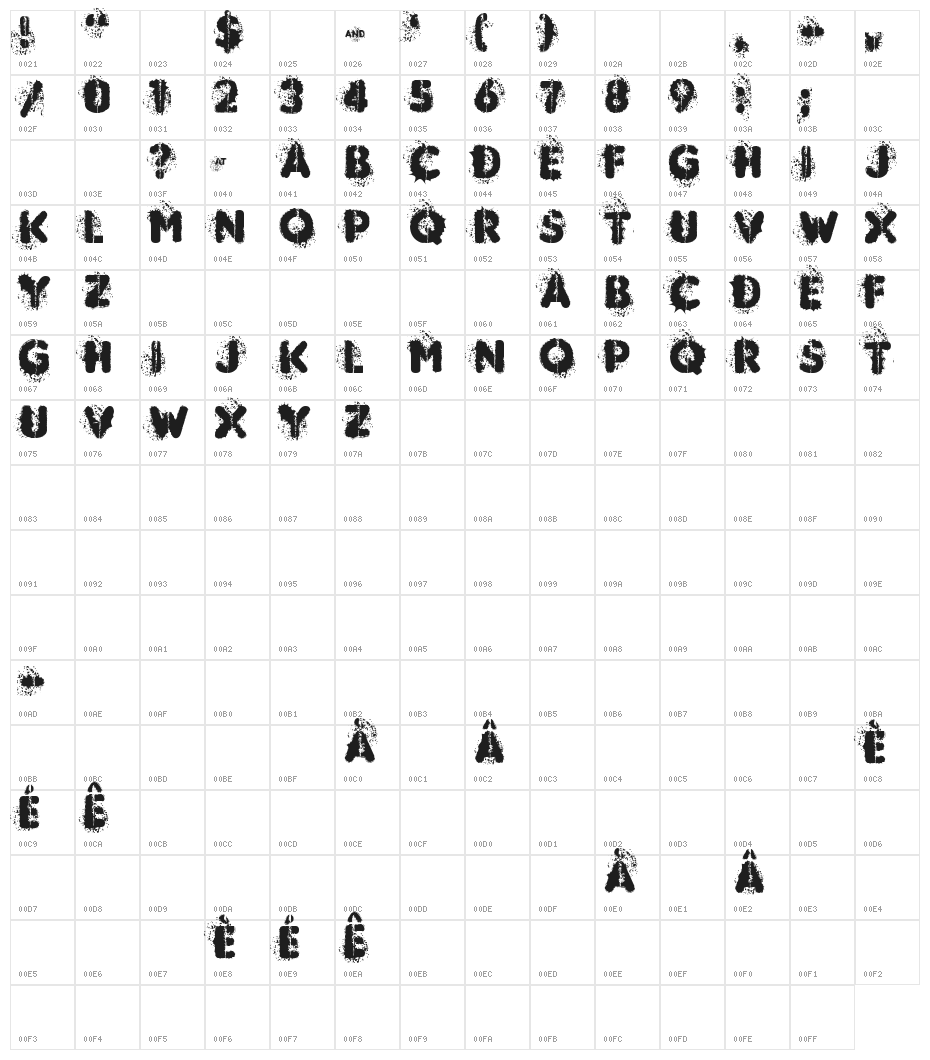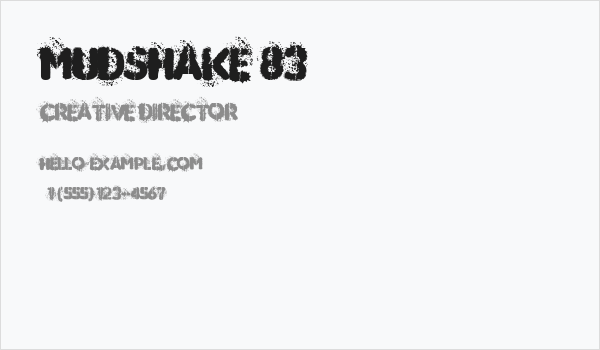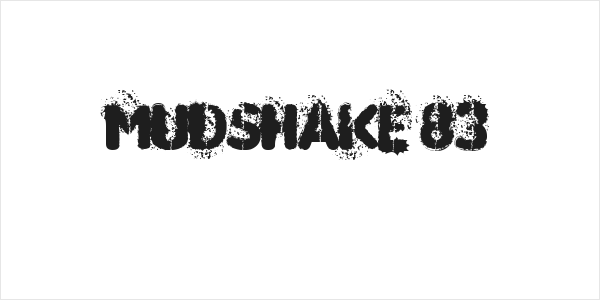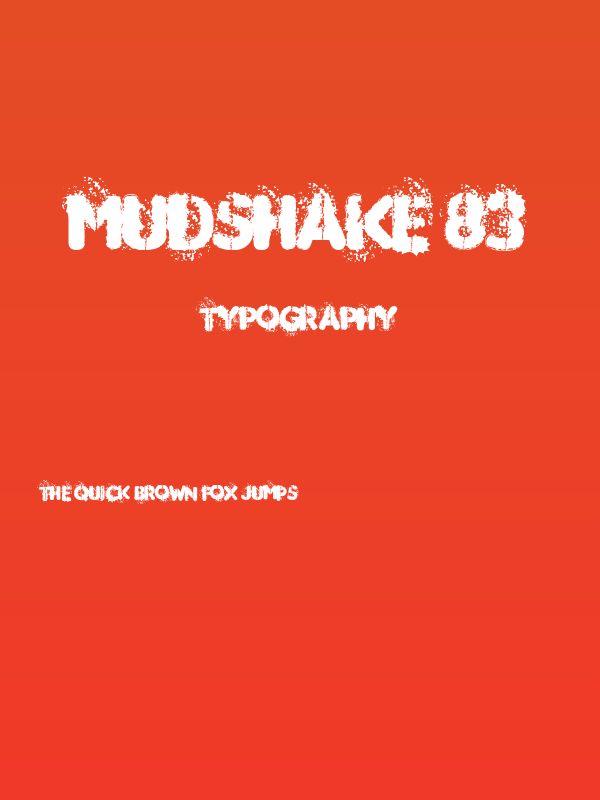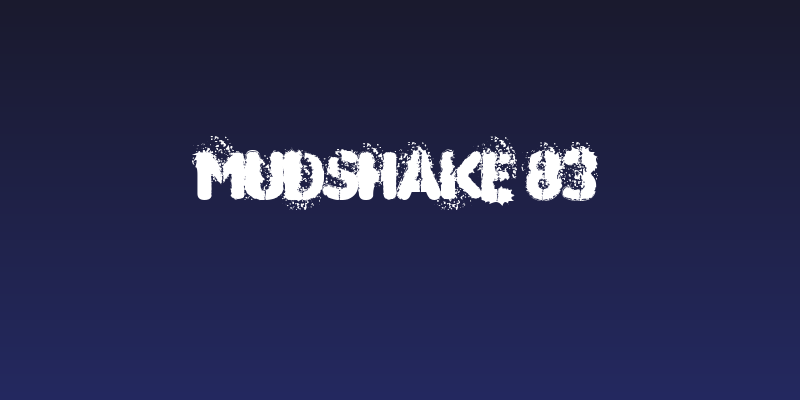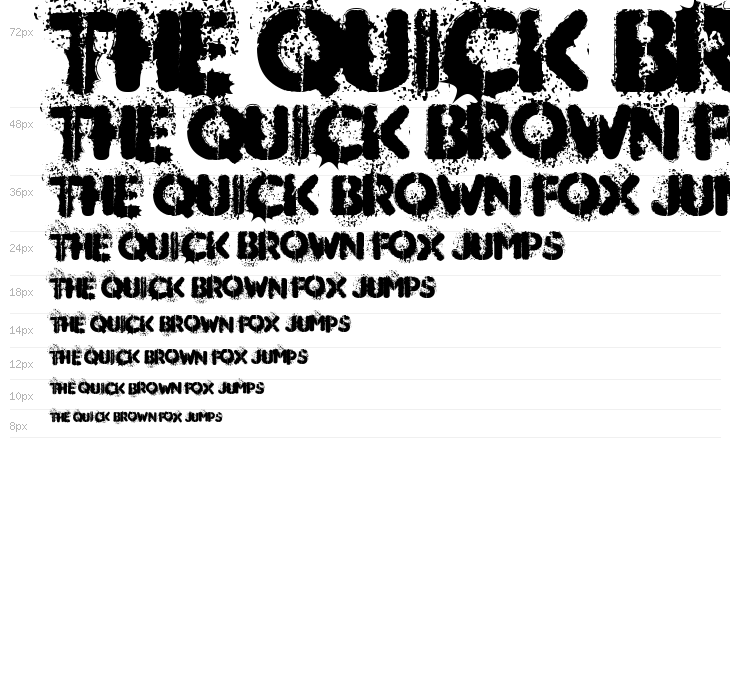
MUDSHAKE 83 Font
MUDSHAKE 83 Description
This font features a bold and distressed style, with each character appearing as if it has been splattered with ink or paint. The edges are irregular and rough, giving it a gritty, urban feel. The uppercase and lowercase letters maintain a consistent height, while the numbers and special characters follow the same distressed aesthetic. This font is highly decorative and eye-catching, making it suitable for designs that require a strong visual impact. The texture adds depth and character, making it ideal for projects that aim to convey a sense of edginess or rebellion.
| Overall Style | Urban, Edgy, Distressed |
| Proposed Projects | Ideal for posters, album covers, streetwear branding, and event flyers that require a bold, edgy look. |